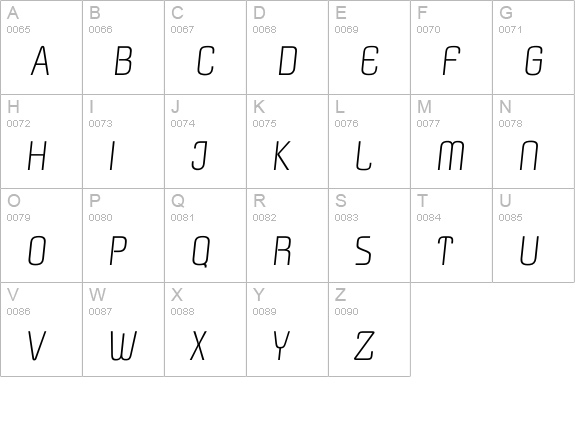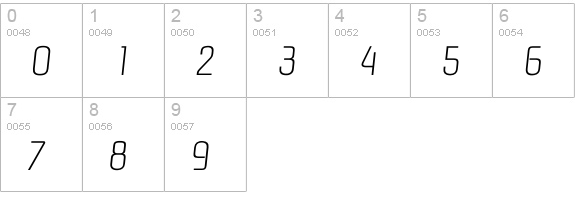
Introducing Ipasadena Xlight font, a sleek and modern typeface that exudes elegance and sophistication. With its clean lines and delicate curves, this font is perfect for adding a touch of class to any design project. Ipasadena Xlight font is incredibly versatile, making it suitable for a wide range of applications. Whether you're designing a logo, creating a website, or working on a branding project, this font will effortlessly elevate your work to the next level. One of the standout features of Ipasadena Xlight font is its light weight. The thin strokes and spacious letterforms give this font a refined and airy appearance, making it ideal for projects that require a subtle and understated touch. But what truly sets Ipasadena Xlight font apart is that it is free. Yes, you read that right - this stunning font is freely available to download at FontsMarket.com. This means that you can enhance your designs without any additional cost, making it a fantastic option for both personal and commercial projects. So why wait? Download Ipasadena Xlight font today and experience the beauty and versatility it has to offer. Whether you're a professional designer or a hobbyist, this font will undoubtedly become a valuable addition to your typographic arsenal. Start creating stunning designs with ease and enjoy the freedom of having this exceptional font at your fingertips.